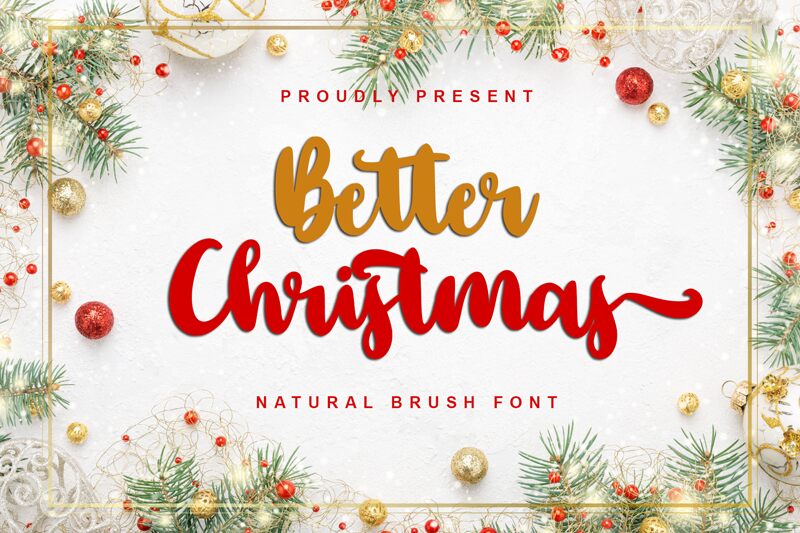
Better Christmas
Better Christmas font by Sarif Letter is an expressive calligraphy resource designed with a festive mood in mind. Its casual handwritten style, contemporary signature script vibe, and bold brush stroke add lots of charm and character to the text. The welcoming feeling that it transmits makes this free calligraphy font suitable for many branding and decorative applications.
Use Better Christmas font to design accessories posters, merchandise tags, gift packages, greeting cards, logos designs printed or non-printed. It can also enhance website banners visuals, social media covers filter-based typography visuals on mobile apps interfaces such as Snapchat & Instagram.